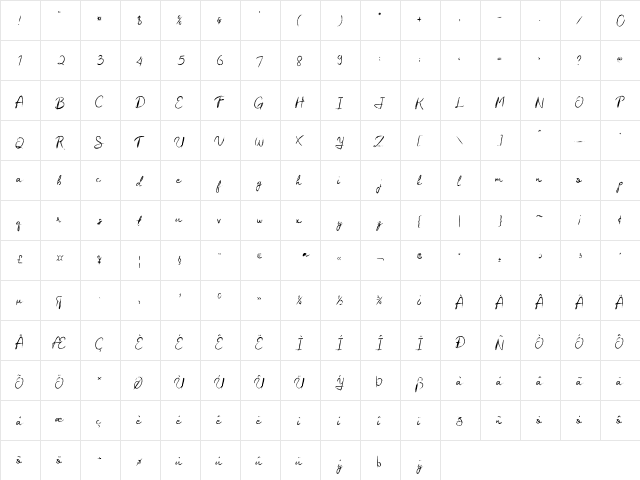
Sugih Janji Regular
Foundry Stringlabs
Design Context for Sugih Janji Typeface
Sugih Janji is a composed and adaptable typeface that performs quietly and consistently across a wide range of design contexts.